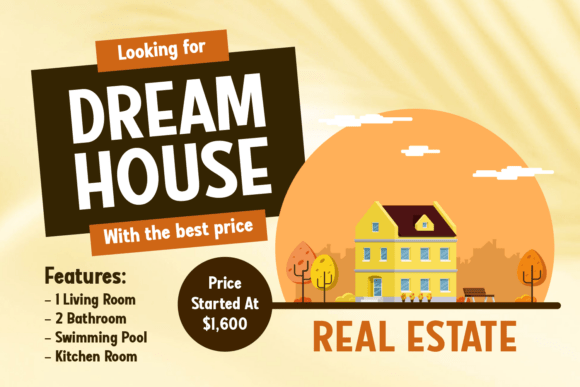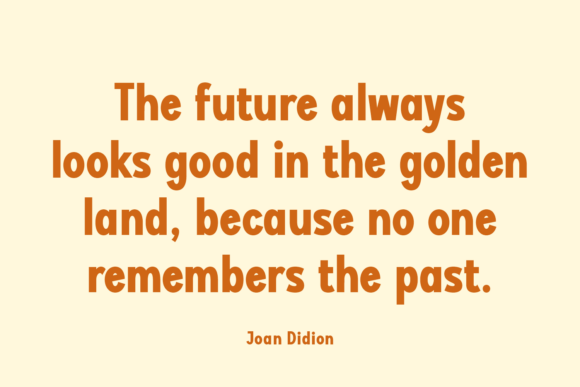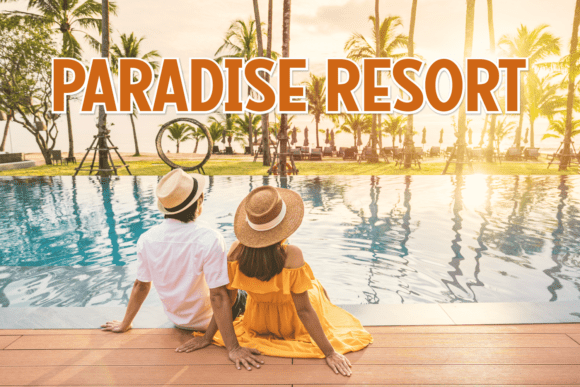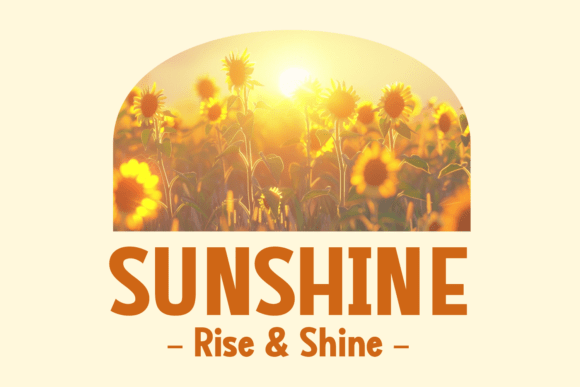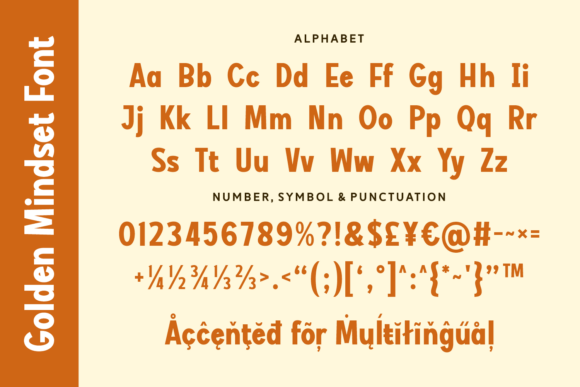
Introduction to Golden Mindset Font
Have you ever stumbled upon a design resource that instantly sparks a new creative project? For many designers, that moment of inspiration is what drives them to push the boundaries of their work. For me, that moment came when I discovered the Golden Mindset Font – a bold, clean, and modern sans serif font that exudes confidence and optimism.
As a designer, I know how valuable it is to have access to high-quality fonts that can elevate our work. The Golden Mindset Font is no exception. Its unique design creates a sunny atmosphere, making it perfect for any project that requires a positive and uplifting tone. And the best part? It’s available for free download with a transparent background, making it easy to integrate into your designs.
Whether you’re working on a branding project or a social media campaign, the Golden Mindset Font is sure to be a valuable addition to your design arsenal. In this article, we’ll take a closer look at this exciting new font and explore its features, benefits, and uses.
Key Features of Golden Mindset Font
- Unique, hand-crafted design with a touch of elegance, perfect for creative projects and personal branding.
- High-quality font with a transparent background, allowing for seamless integration into any design resource.
- Supports a wide range of languages, making it a versatile design resource for global creative projects.
- Perfect for creating eye-catching headlines, logos, and titles in various design applications, including Adobe Creative Cloud.
Honest Review: Golden Mindset Font
I recently had the chance to work with the Golden Mindset Font, and I must say it’s a fantastic addition to any design resource collection. This font is perfect for creative projects where you need a touch of elegance and sophistication.
- ✨ High-quality design: The Golden Mindset Font features beautifully crafted letters with a clear, transparent background.
- ✨ Versatility: This font is suitable for a wide range of applications, from headings to body text.
- ⚠️ Limited font styles: While the font itself is well-designed, there are limited styles available, which might be a drawback for some users.
- ⚠️ Limited language support: The font may not support all languages, which could be a limitation for designers working on multilingual projects.
Overall, I’m impressed with the Golden Mindset Font. It’s a great addition to any design collection, and its free download makes it accessible to designers of all levels. While it has some limitations, the quality and versatility of the font make it a worthwhile resource for any creative project.
How to Use Golden Mindset Font
The Golden Mindset Font is a unique design resource that can elevate your creative project to the next level. This high-quality font features a transparent background, making it perfect for a variety of applications.
Tips for Getting the Most Out of the Golden Mindset Font
To get the most out of the Golden Mindset Font, experiment with different font sizes, colors, and combinations to create a unique look that reflects your brand.
The Golden Mindset Font is perfect for:
- Marketing materials, such as brochures and flyers
Alternatives to Golden Mindset Font
Glacial Indifference Font
Glacial Indifference Font is a modern sans-serif font ideal for creative projects requiring a clean and minimalist design. It features a high-quality, transparent background and is suitable for digital and print materials. This font is perfect for designers seeking a unique, yet subtle, design resource.